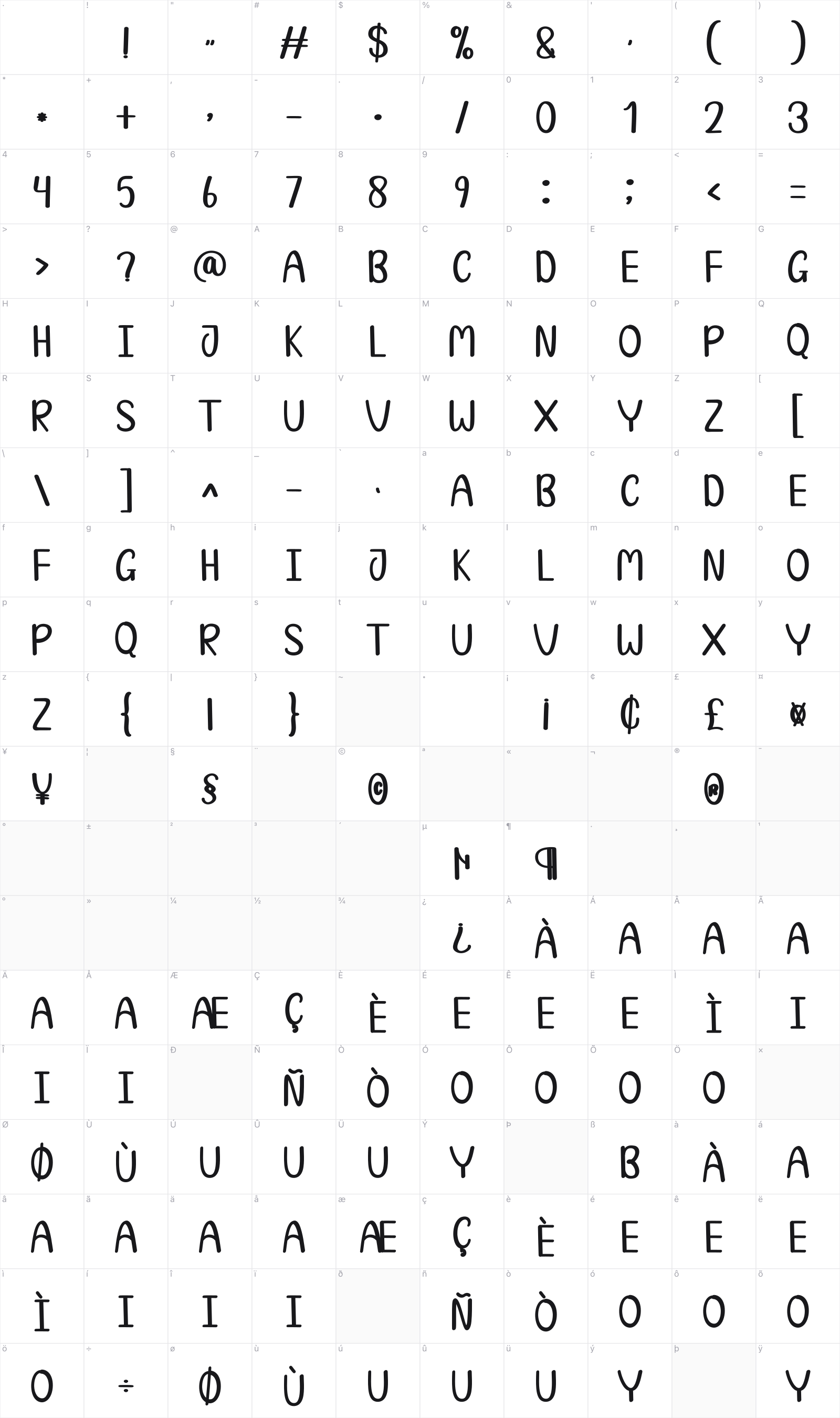
Beach Shells
Beach Shells is a sweet, upright handwritten display font with tall characters and gently tapered stroke terminals. The slight irregularity in its hand-drawn construction gives it a personal, warm quality without feeling sloppy. It works well anywhere a casual, friendly touch is needed, from wedding invitations to packaging labels.